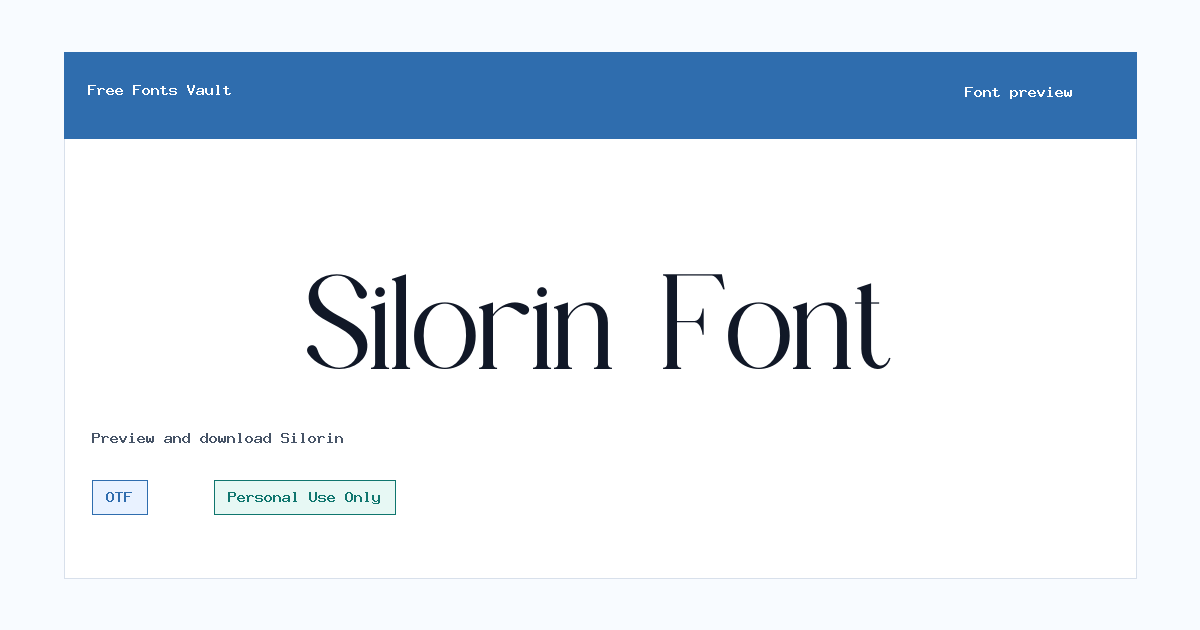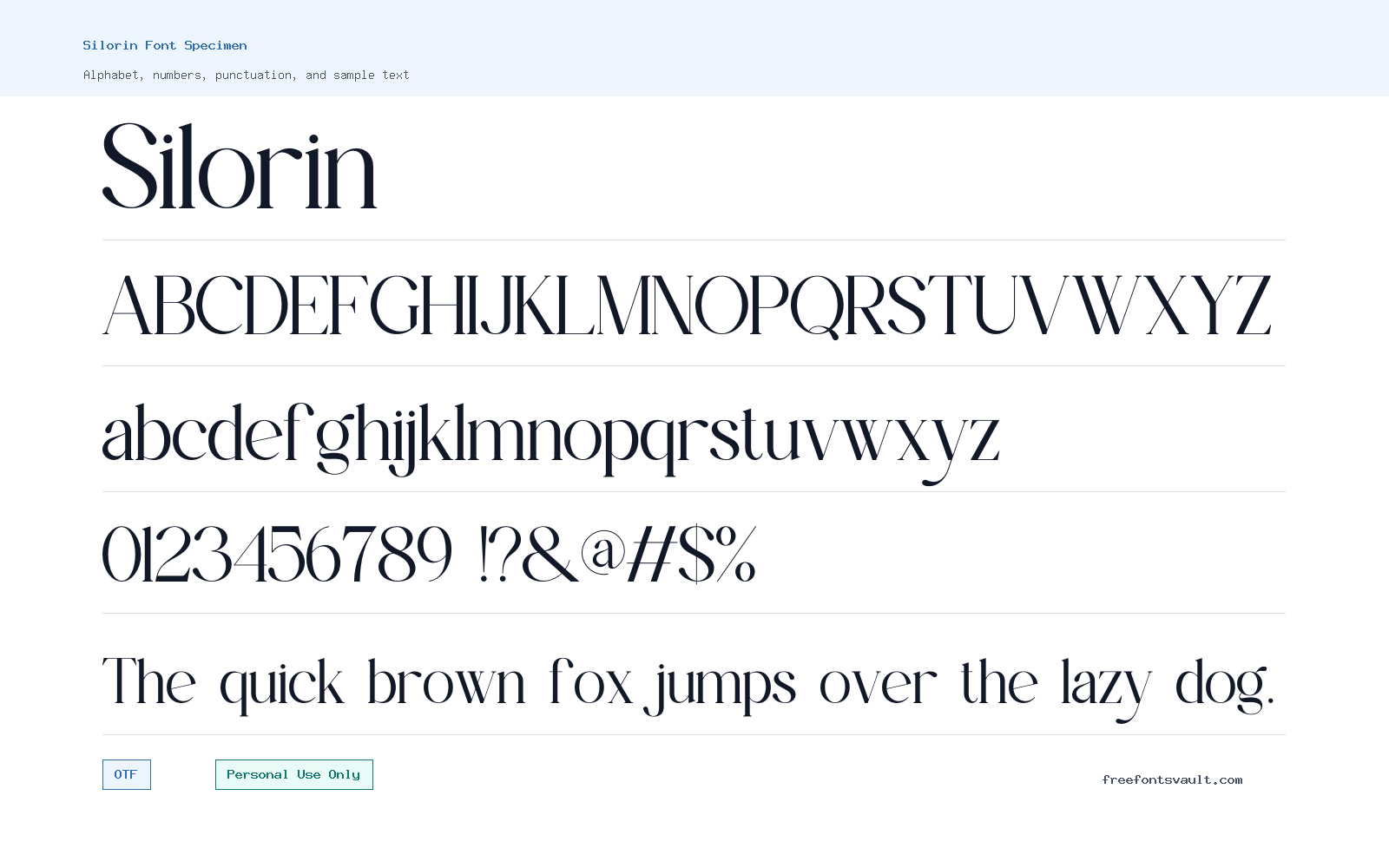
Silorin
- Designer ErmediaStudio
Silorin is a serif font with a regular OTF file for personal-use projects. It is a good choice to test when you need a refined display style for short text, titles, or decorative lettering rather than long paragraphs.
About Silorin Font
Silorin works best when you give it room to show its letter shapes. Because the available file is a regular style with normal weight, it is most useful for clean headings, name designs, quote graphics, invitations, mood boards, and personal branding drafts. Try it in the preview box with both uppercase and lowercase text, then check how the spacing behaves in the exact words you plan to use. Some serif display fonts look strong in a single word but need more adjustment in longer phrases, so testing your own text is important before downloading.
Use Silorin for personal mockups, social images, digital layouts, printable drafts, and other non-commercial experiments where a more formal serif tone fits the design. Keep the text short if you want the font to feel polished. For body copy, captions, or dense paragraphs, pair it with a simpler sans serif or a highly readable text serif. If your project will be shared publicly, sold, used for a client, printed on products, added to a logo, or included in a brand system, confirm the full license terms first.
- Serif styling suited to titles, short display text, and personal design previews
- Personal invitation drafts, quote graphics, mood boards, and title designs
- Short headings, name styling, decorative text, and non-commercial layout tests
Who designed Silorin?
The font is credited to ErmediaStudio.
What is Silorin best used for?
Silorin is best tested for short display text such as headings, invitations, quote graphics, and personal design mockups.